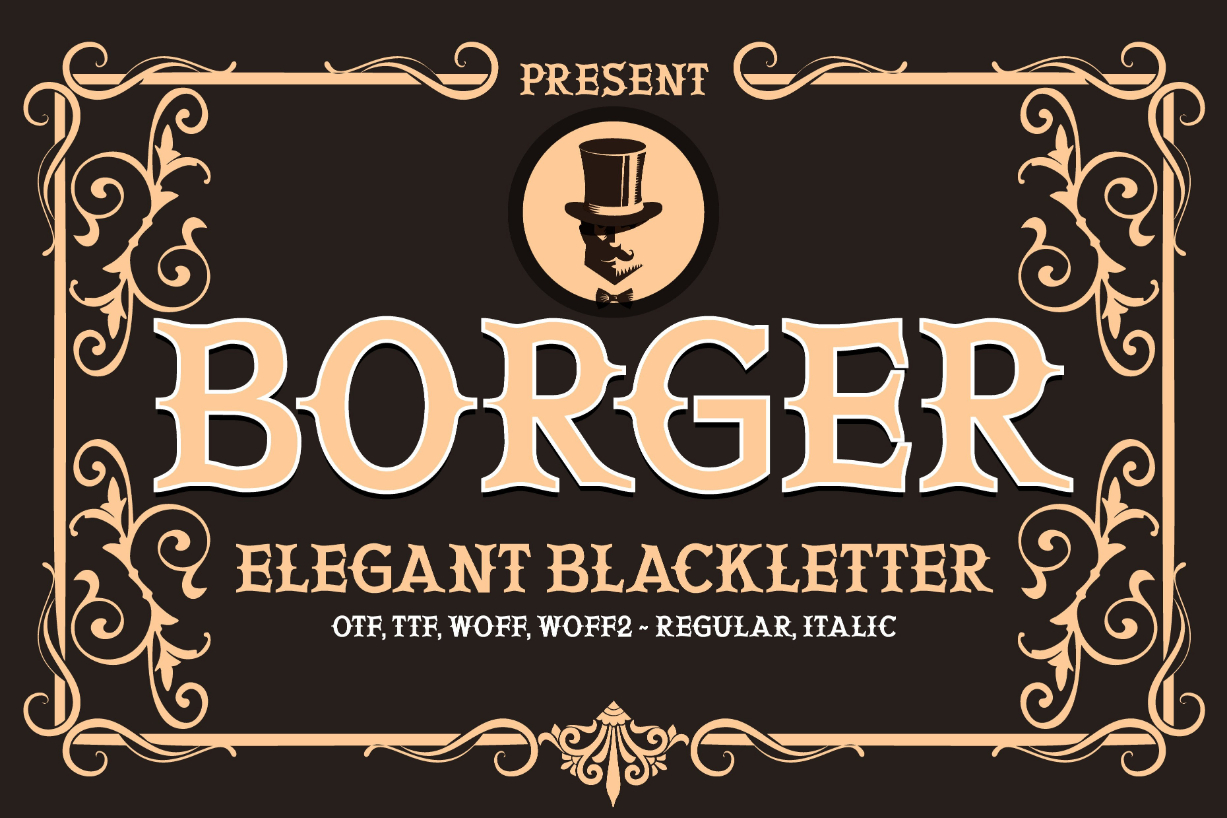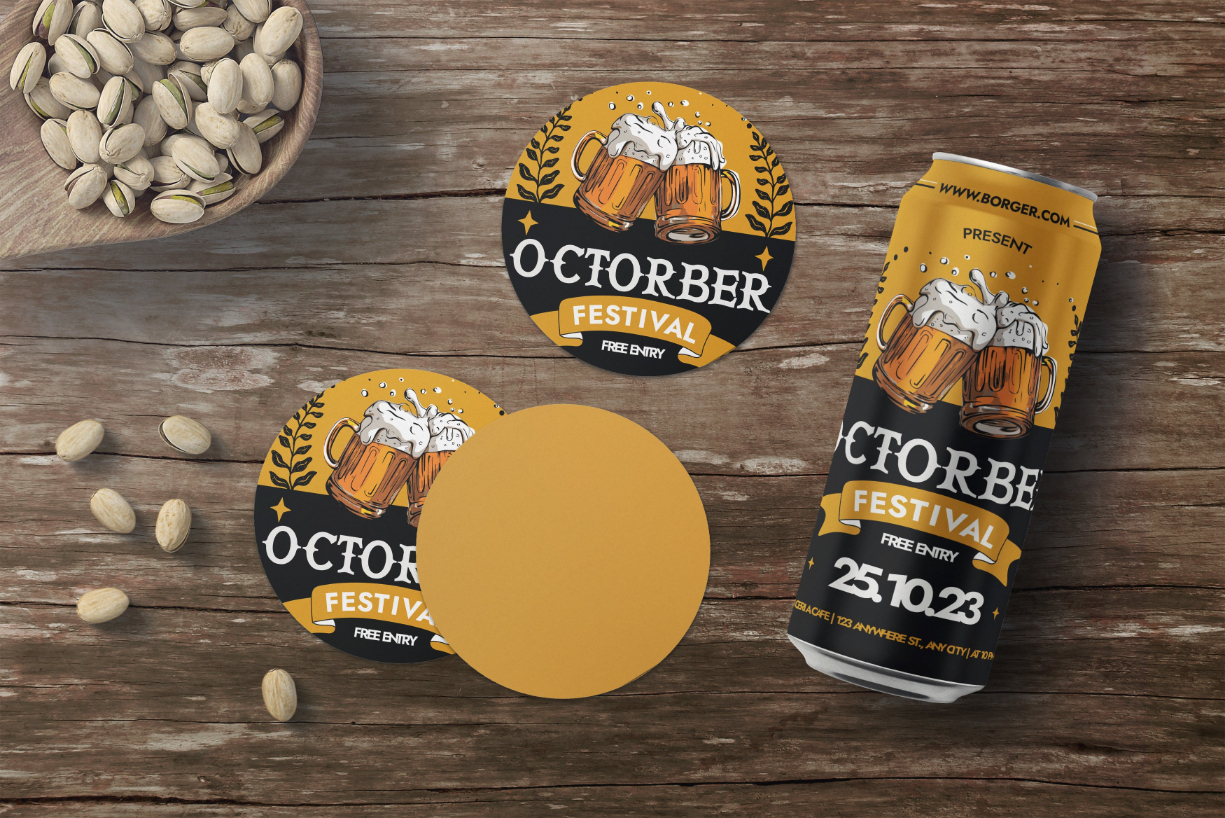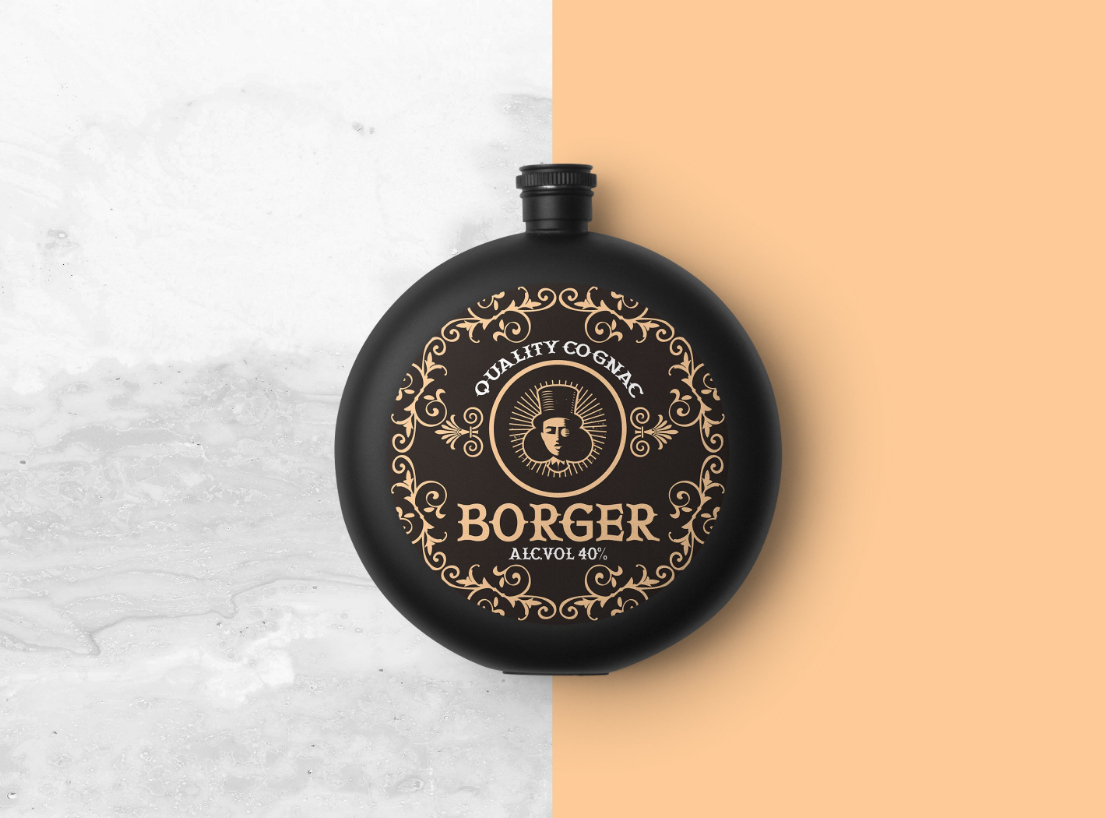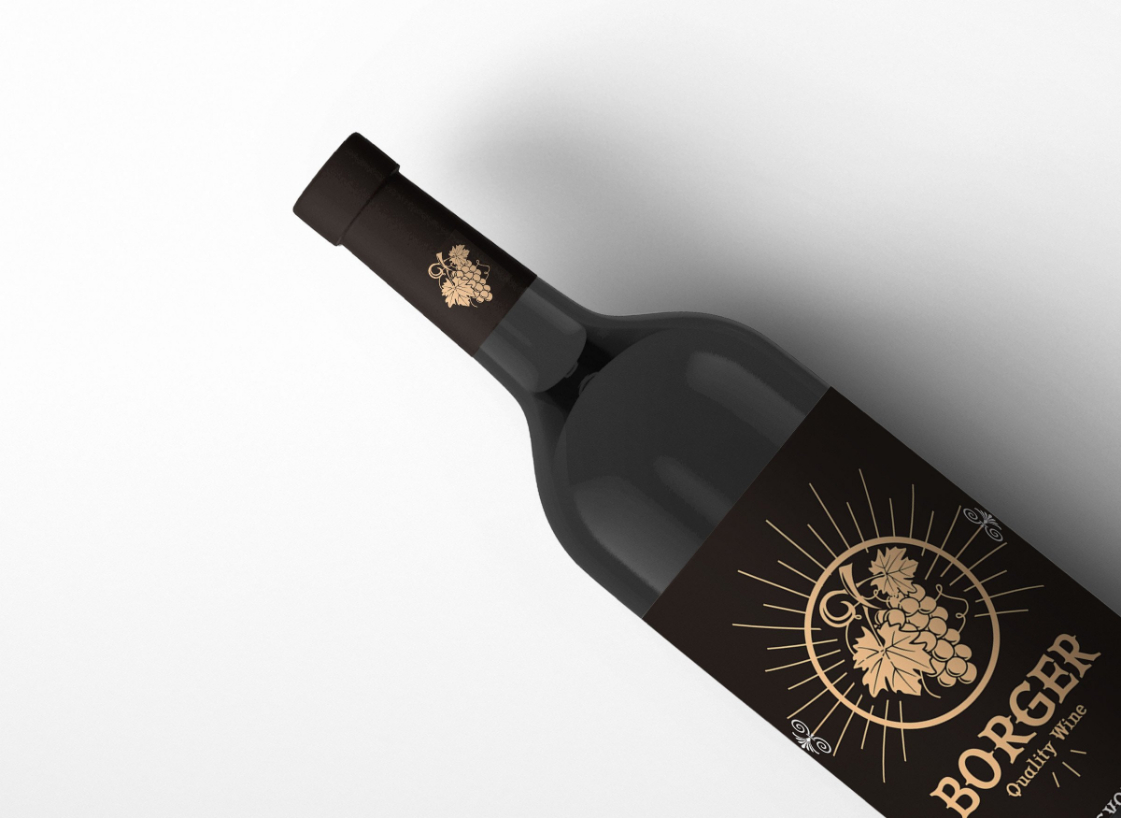
Borger Font
About Borger Font
Borger is a strong, extreme, and vintage blackletter detailed serif font. It was initially created as a readable display font that fits perfectly when you are designing alcohol packaging. However, it fits great other themes such as film posters, horror designs, barber shop graphics and packaging, Halloween, etc.